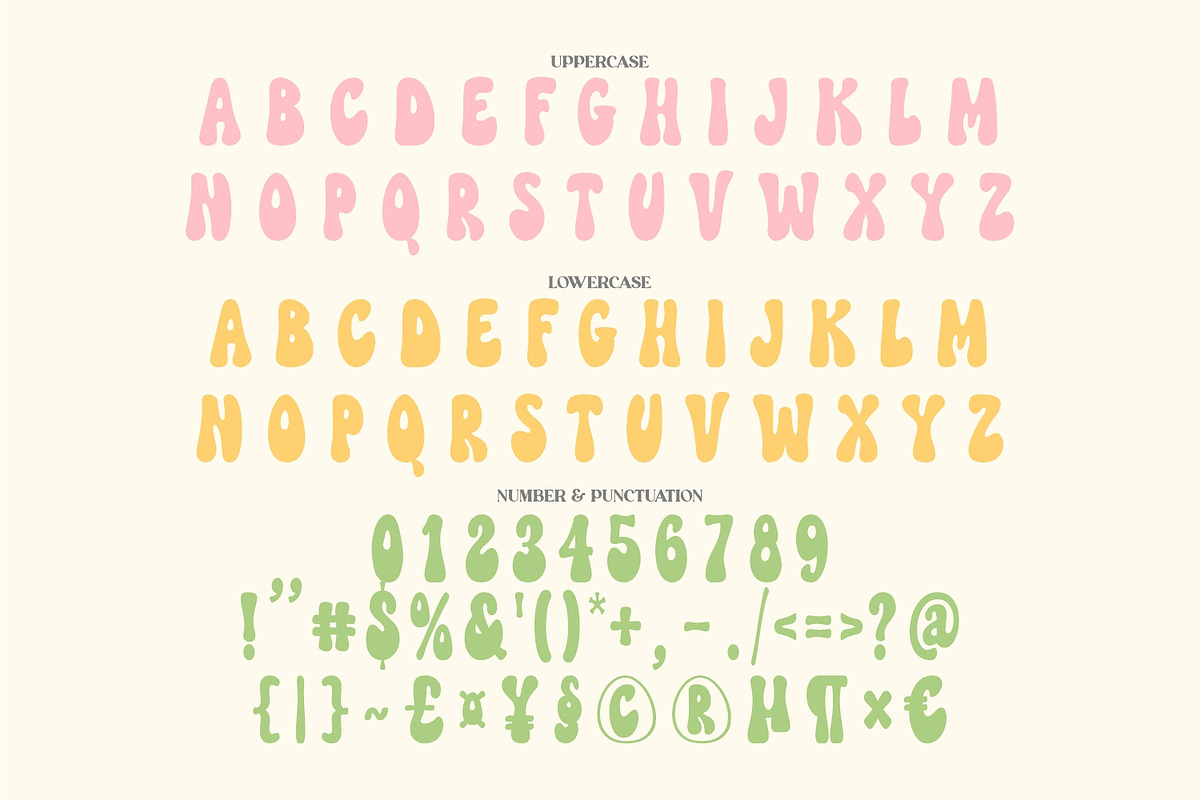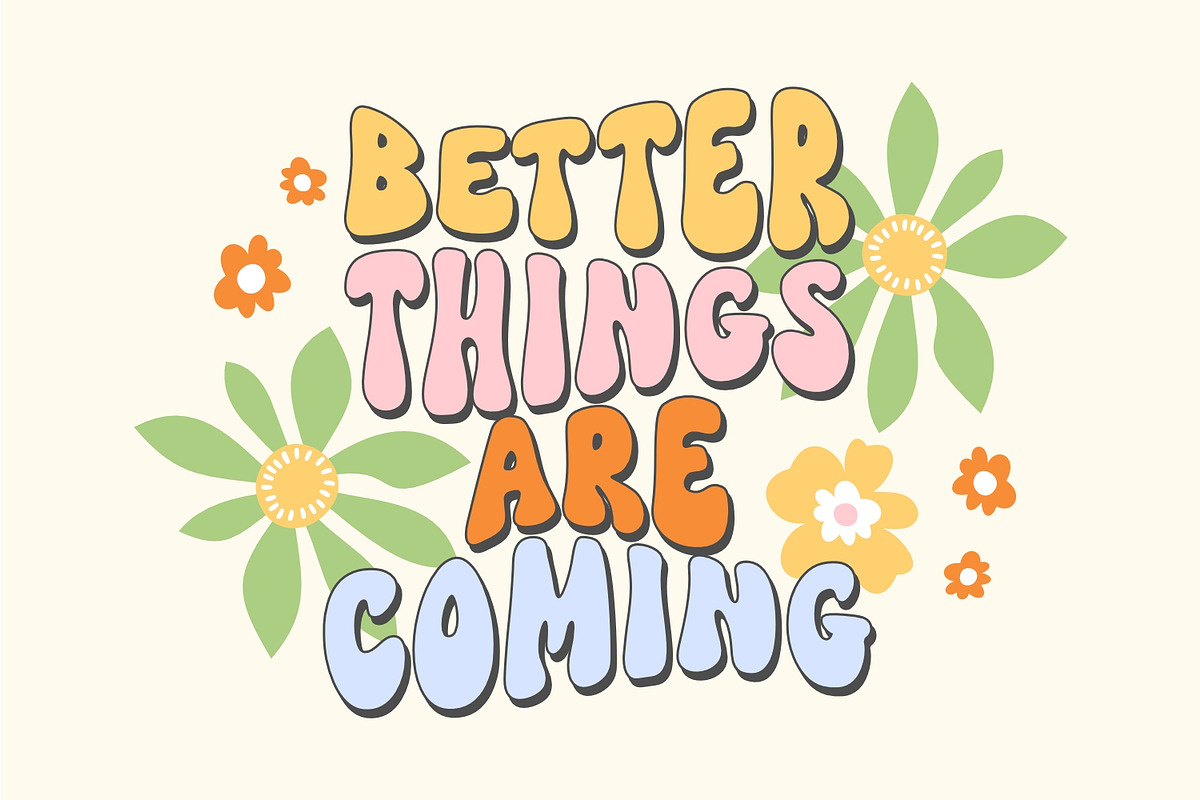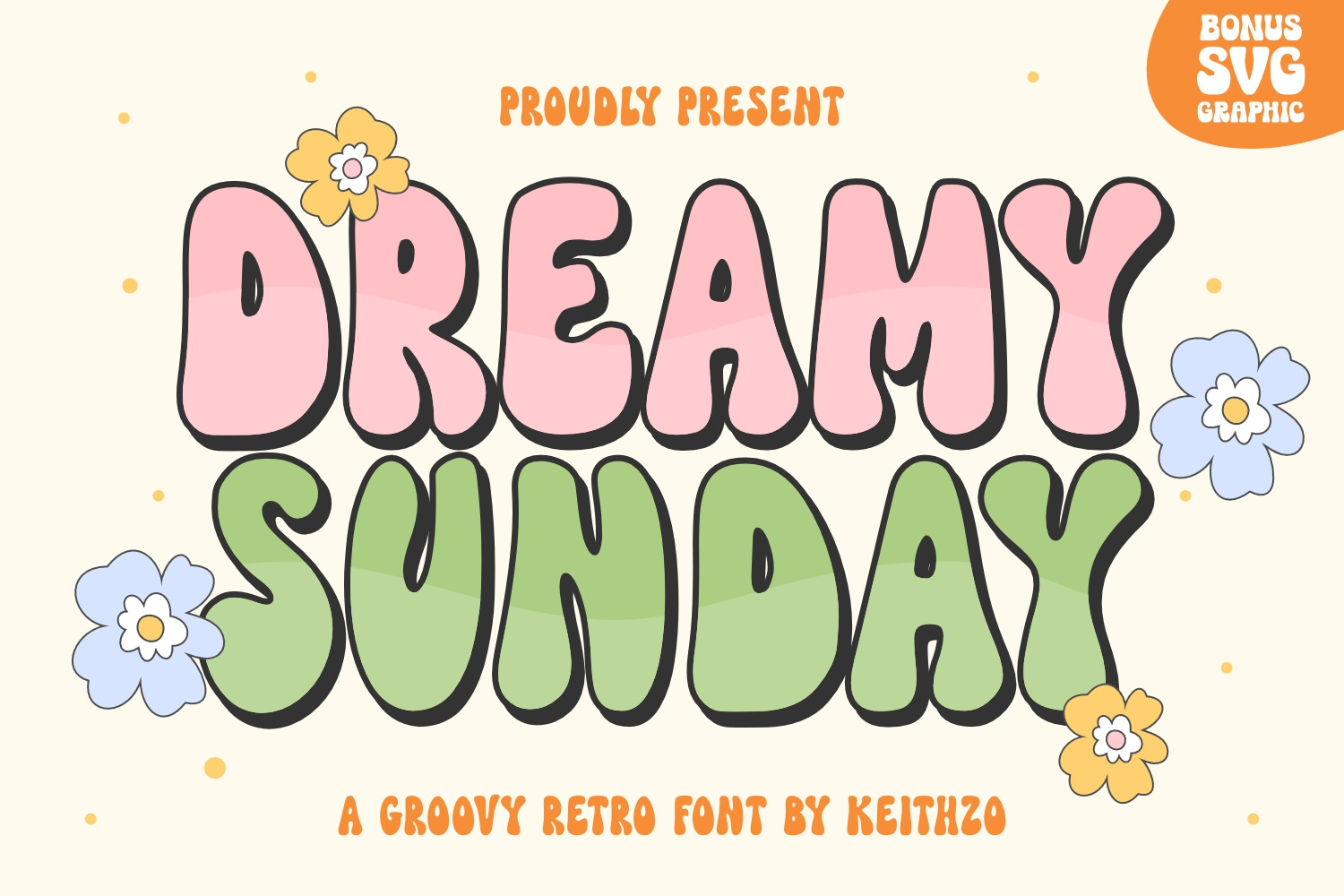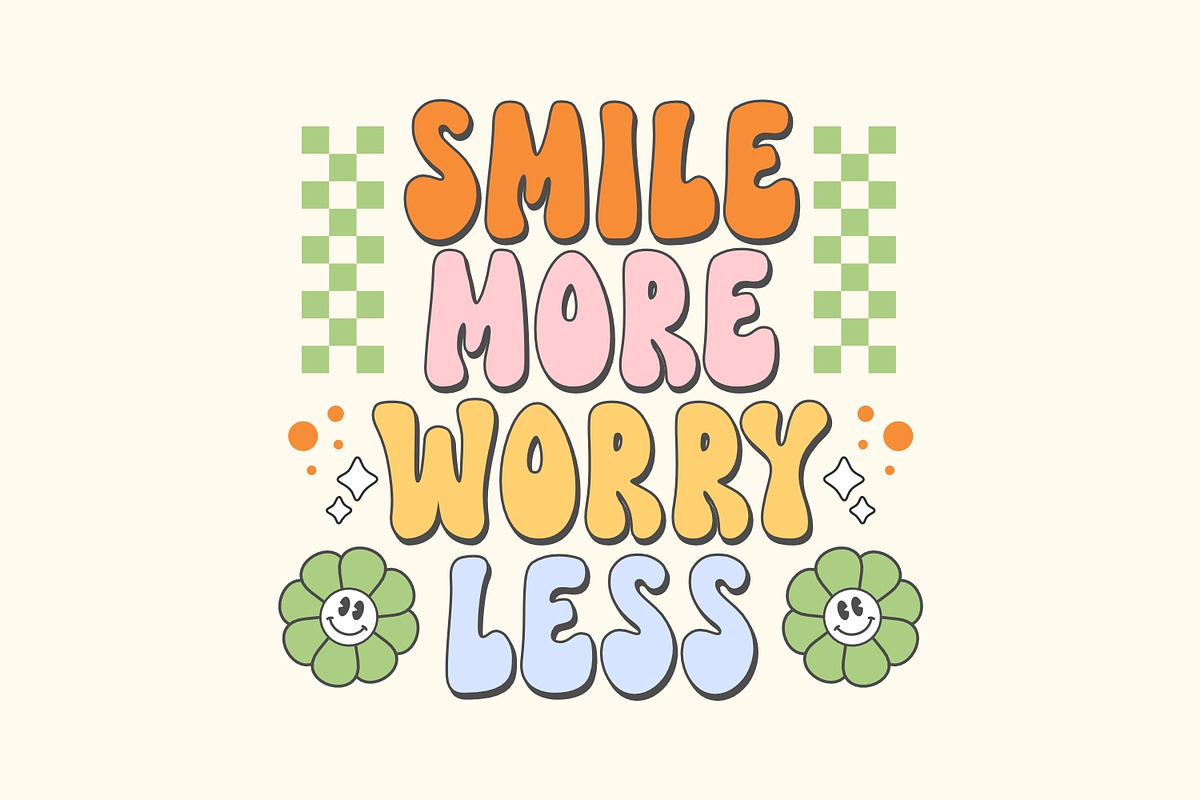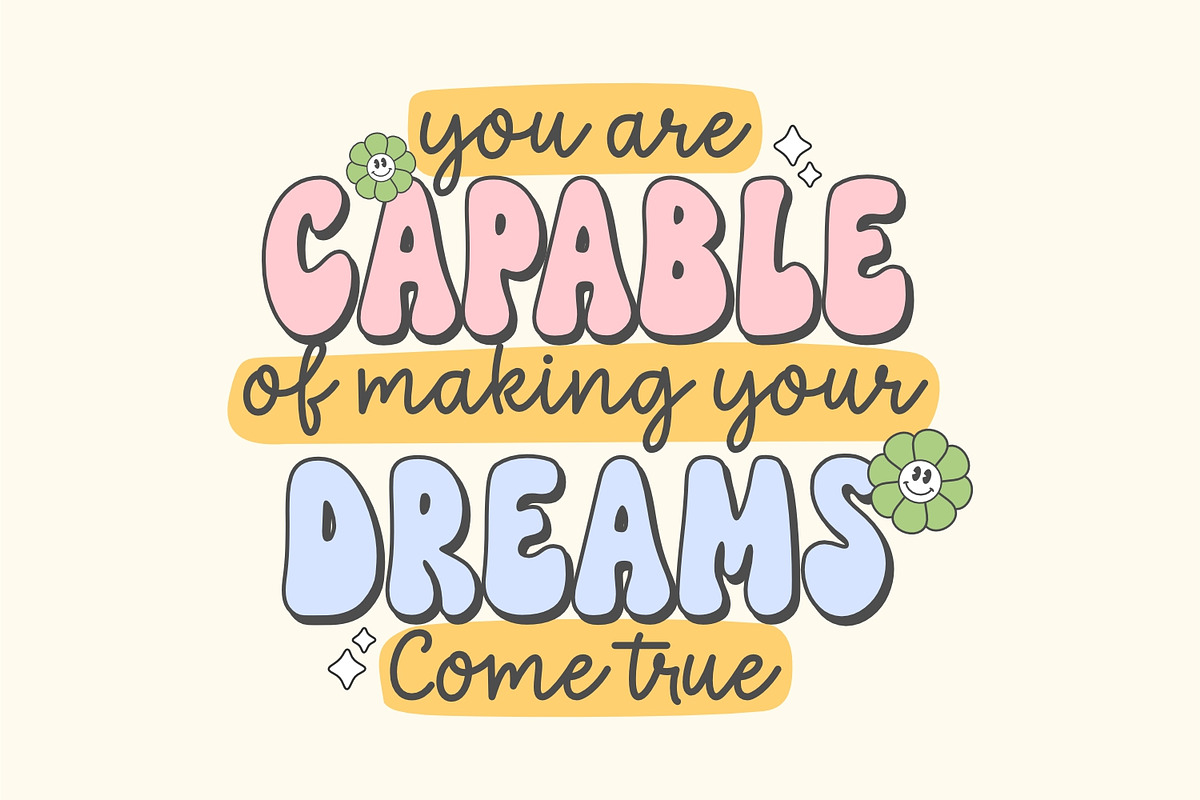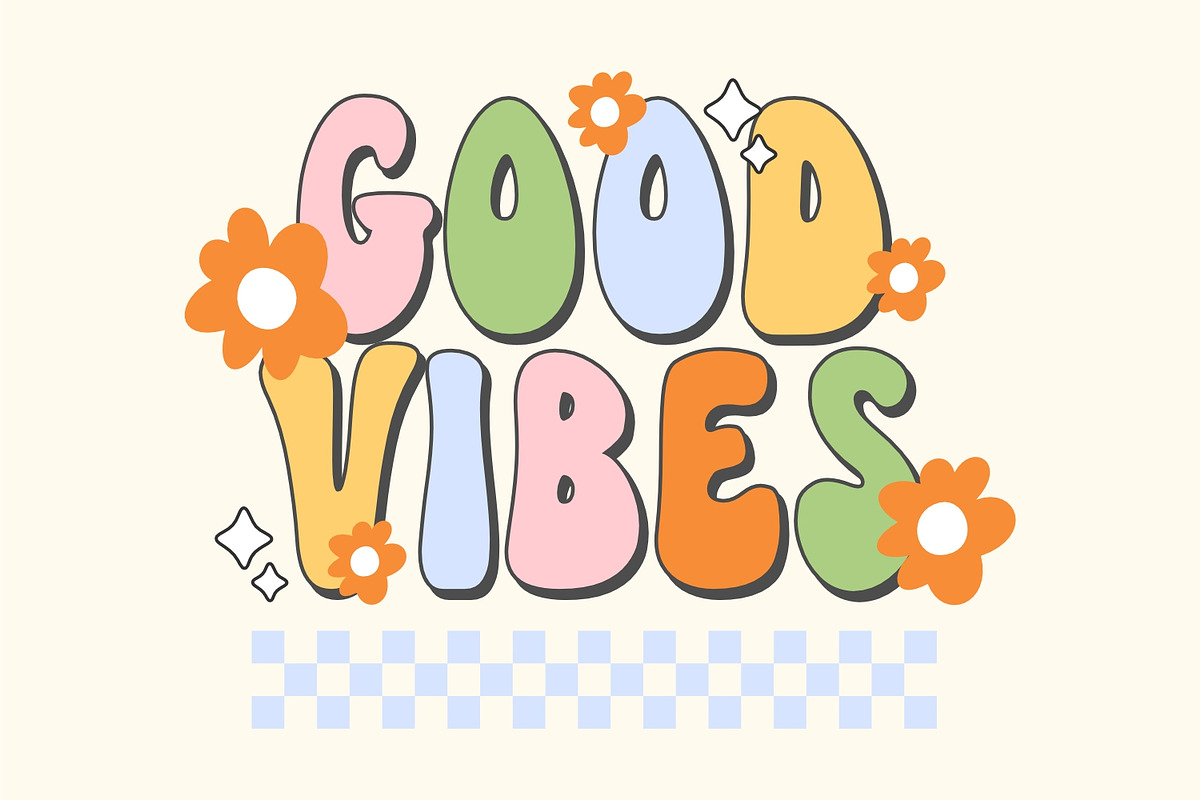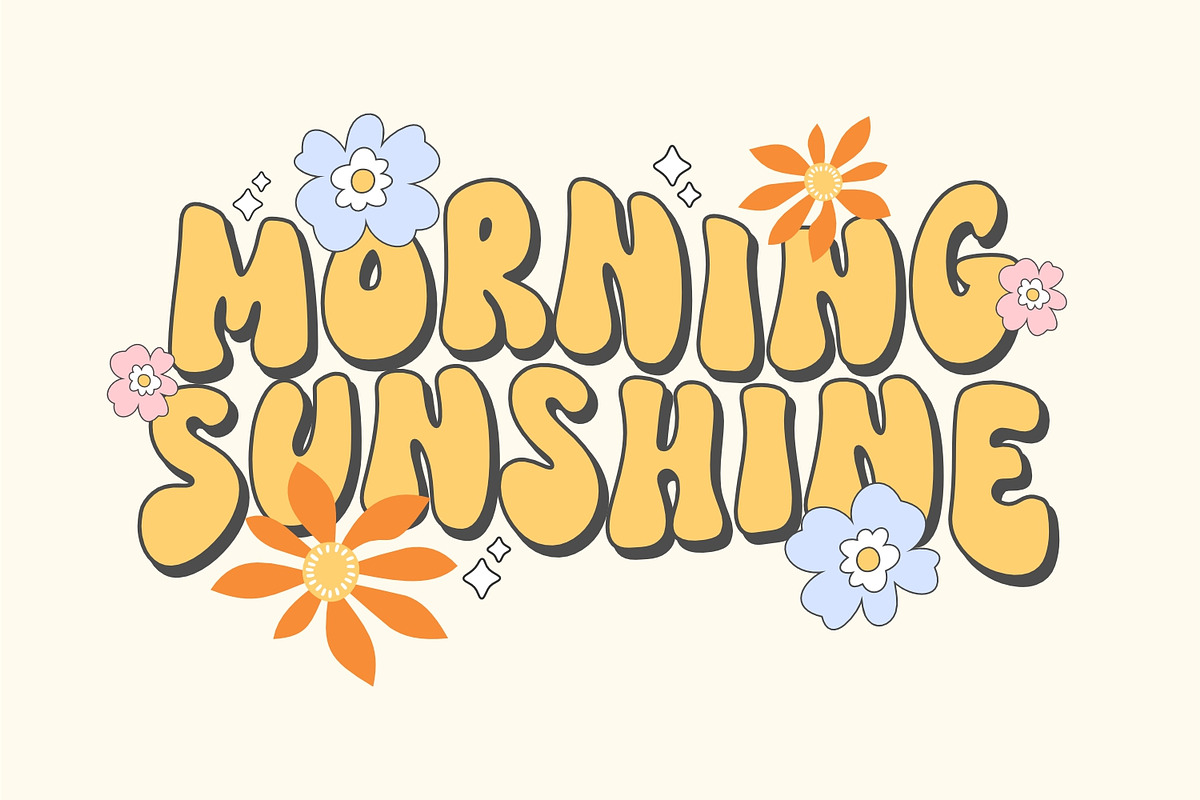
Dreamy Sunday - Groovy Retro Font
Dreamy Sunday is a cute and quirky display font. It will add an incredibly joyful touch to your designs. Add this beautiful display font to each of your creative ideas and notice how it makes them stand out!